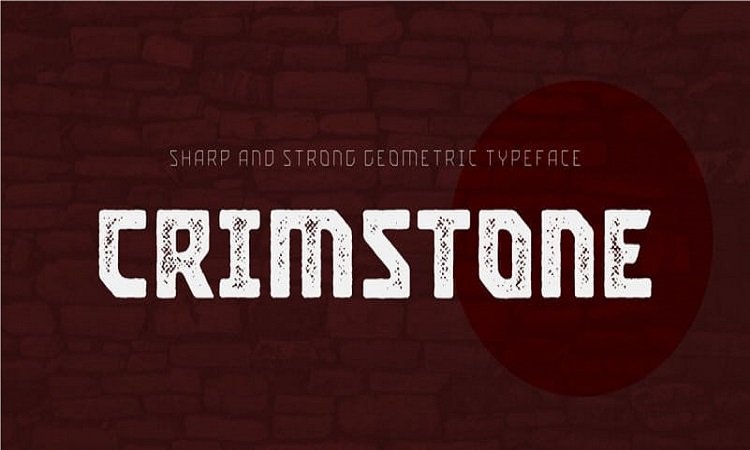
Crimstone Display Font Free
Crimstone Display Font comes with high tech look with powerful, strong sharp corner, represent not so distant future for all of us. Made from font designer named Arwan Sutanto. And it’s a free bold and strong geometric typeface. Crimstone consists of uppercase, lowercase, numerals, symbols, and is multilingual. This font is perfect for; poster designs, headlines, movie titles, logotypes, packaging etc. This freebie includes the rounded & rounded italic versions only.